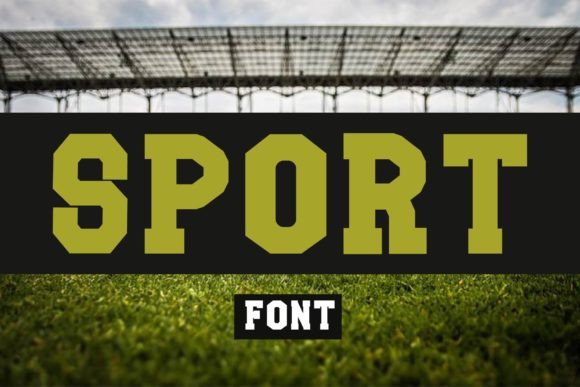
Introducing Sport Font, the best font for logo Canva. Created by MDF, this serif font is perfect for anyone looking for a cool and original display font. With its bold and sporty design, Sport Font is the perfect choice for all your creative design projects.
Looking for a font that will make your logo stand out? Look no further than Sport Font. Its clean lines and classic design make it the perfect choice for any branding or corporate identity project. Whether you're designing a logo for a sports team, a fitness brand, or a fashion line, Sport Font will help you elevate your brand and make it stand out from the crowd.
But Sport Font isn't just for logos. It's also a great choice for headlines, posters, music and movie titles, games, magazines, books, comics, cartoons, YouTube videos, Instagram posts, websites, and more. Its versatility makes it the perfect choice for any creative project.
And if you're looking for a font that will evoke a sense of nostalgia and old-school charm, Sport Font is the perfect choice. Its retro-inspired design is perfect for anyone looking to add a touch of vintage charm to their designs.